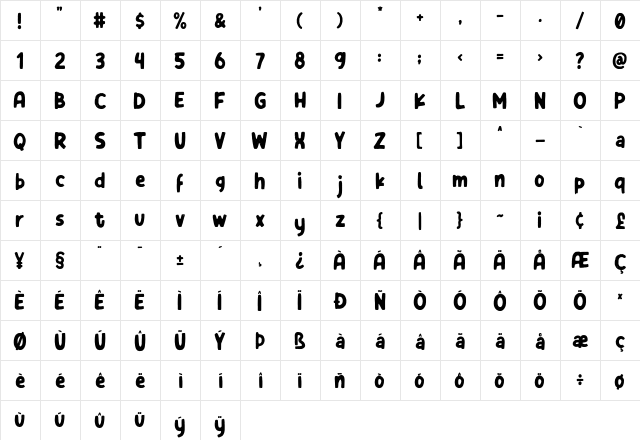
CORDON Regular
Design Context for CORDON Typeface
CORDON is a composed and adaptable typeface that performs quietly and consistently across a wide range of design contexts.